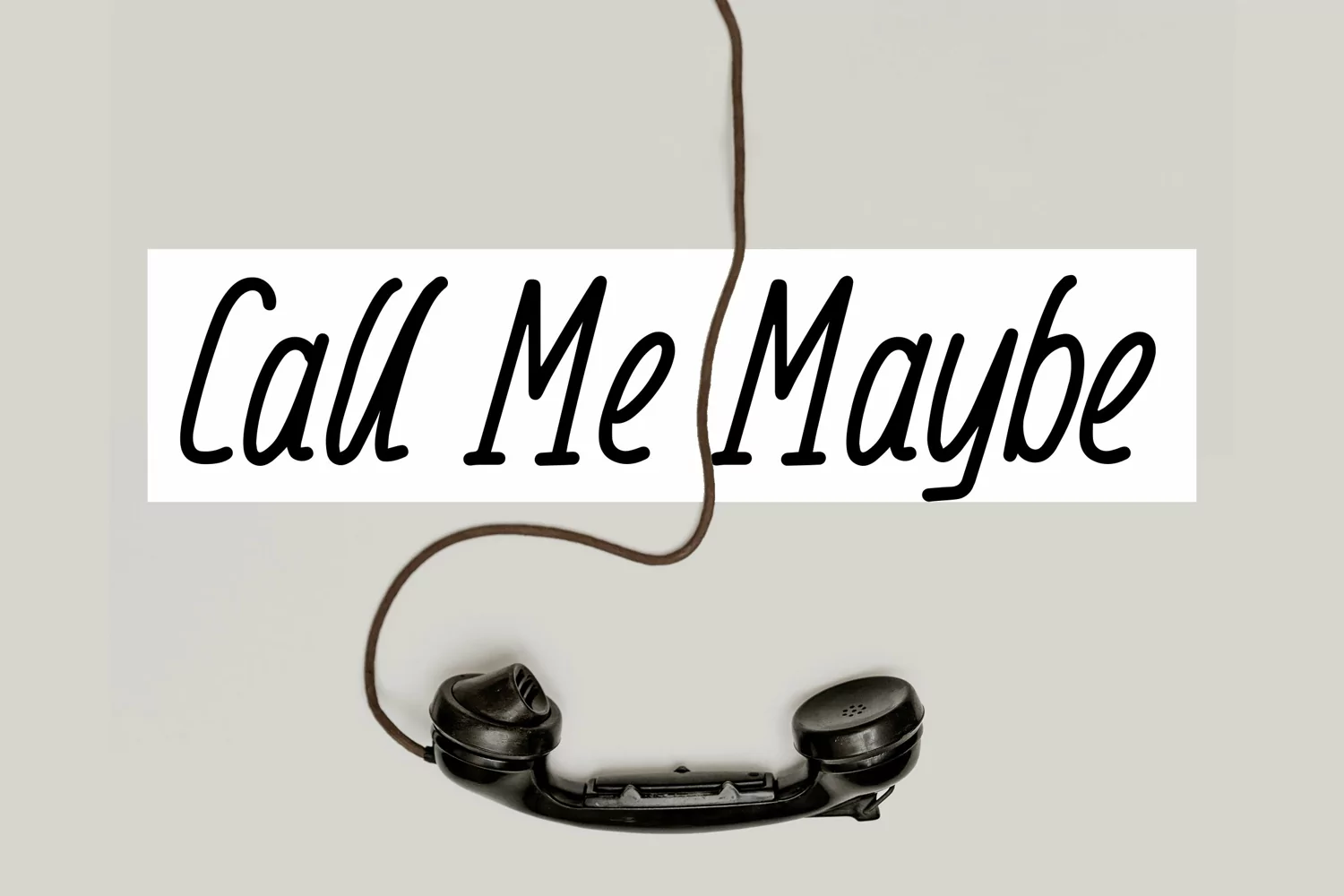
Vintage Times - Vintage Monoline Font that contain lowercase, uppercase, symbol, and also support multi language. There’s a lot ligatures in this font. This Font also comes with ligatures, alternates and many more. this font suitable for fashion, branding, catalog and other design what you want.
Vintage Times